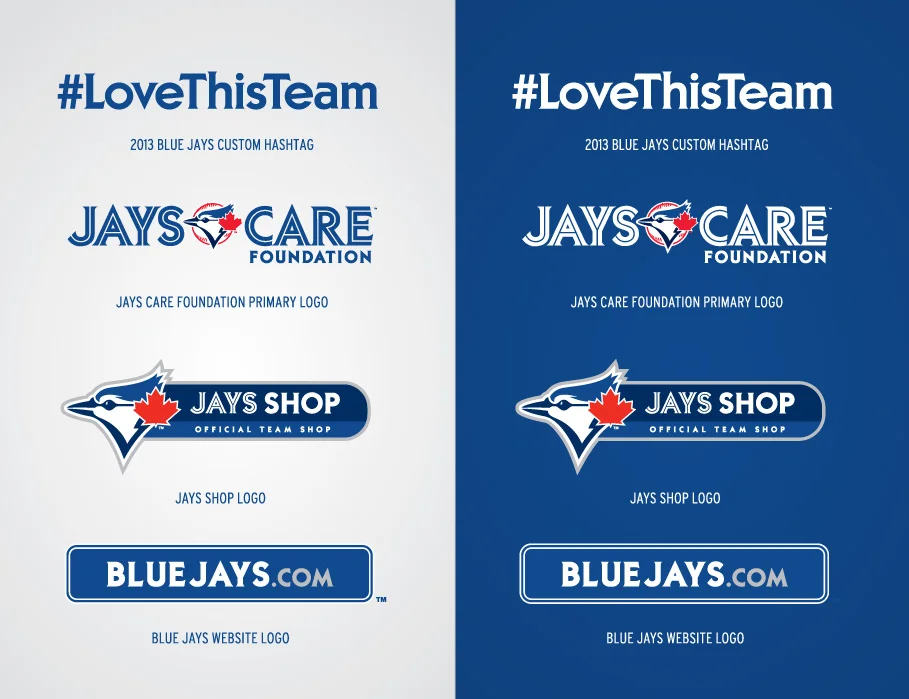
What Is The Blue Jays Font . what's the font used for toronto blue jays logo? the mlb toronto blue jays wilson font contains 236 beautifully designed characters. the toronto blue jays logo history, colors, font, and meaning. It looks to be based on itc elan with a few. it is a free font. it's a custom font, not commercially available—at least in my exploration. toronto blue jays is a casual modern and classy sans serif font that will add a delicate feel to any design project. The team was founded in 1977 as an expansion. ️ customize your own preview on ffonts.net to make. The font used for toronto blue jays logo is very similar to itc elan bold, which is a glyphic serif font. The toronto blue jays are a professional baseball team based in toronto, ontario, canada. here’s a collection of the blue jays font (not an actual font file, just vector characters i collected), and some extra stuff if anyone.
toronto blue jays is a casual modern and classy sans serif font that will add a delicate feel to any design project. The font used for toronto blue jays logo is very similar to itc elan bold, which is a glyphic serif font. what's the font used for toronto blue jays logo? it's a custom font, not commercially available—at least in my exploration. It looks to be based on itc elan with a few. The team was founded in 1977 as an expansion. the toronto blue jays logo history, colors, font, and meaning. ️ customize your own preview on ffonts.net to make. here’s a collection of the blue jays font (not an actual font file, just vector characters i collected), and some extra stuff if anyone. the mlb toronto blue jays wilson font contains 236 beautifully designed characters.
The Blue Jay Font
What Is The Blue Jays Font it's a custom font, not commercially available—at least in my exploration. The font used for toronto blue jays logo is very similar to itc elan bold, which is a glyphic serif font. The team was founded in 1977 as an expansion. ️ customize your own preview on ffonts.net to make. It looks to be based on itc elan with a few. the toronto blue jays logo history, colors, font, and meaning. here’s a collection of the blue jays font (not an actual font file, just vector characters i collected), and some extra stuff if anyone. what's the font used for toronto blue jays logo? the mlb toronto blue jays wilson font contains 236 beautifully designed characters. it is a free font. it's a custom font, not commercially available—at least in my exploration. toronto blue jays is a casual modern and classy sans serif font that will add a delicate feel to any design project. The toronto blue jays are a professional baseball team based in toronto, ontario, canada.
Lets Go Blue Jays (Blue Font) Toronto Blue Jays World Series Inspired What Is The Blue Jays Font here’s a collection of the blue jays font (not an actual font file, just vector characters i collected), and some extra stuff if anyone. the mlb toronto blue jays wilson font contains 236 beautifully designed characters. the toronto blue jays logo history, colors, font, and meaning. The toronto blue jays are a professional baseball team based in. What Is The Blue Jays Font.
MLB Blue Jays Modern free Font What Font Is What Is The Blue Jays Font it is a free font. The font used for toronto blue jays logo is very similar to itc elan bold, which is a glyphic serif font. what's the font used for toronto blue jays logo? The toronto blue jays are a professional baseball team based in toronto, ontario, canada. here’s a collection of the blue jays font. What Is The Blue Jays Font.
MLB Blue Jays Vintage free Font What Font Is What Is The Blue Jays Font it is a free font. the mlb toronto blue jays wilson font contains 236 beautifully designed characters. here’s a collection of the blue jays font (not an actual font file, just vector characters i collected), and some extra stuff if anyone. It looks to be based on itc elan with a few. what's the font used. What Is The Blue Jays Font.
The Blue Jay Font What Is The Blue Jays Font toronto blue jays is a casual modern and classy sans serif font that will add a delicate feel to any design project. The font used for toronto blue jays logo is very similar to itc elan bold, which is a glyphic serif font. It looks to be based on itc elan with a few. what's the font used. What Is The Blue Jays Font.
Toronto Blue Jays Logo Special Event Logo American League (AL What Is The Blue Jays Font toronto blue jays is a casual modern and classy sans serif font that will add a delicate feel to any design project. the toronto blue jays logo history, colors, font, and meaning. ️ customize your own preview on ffonts.net to make. it's a custom font, not commercially available—at least in my exploration. the mlb toronto blue. What Is The Blue Jays Font.
Blue Jays/TCU Jersey Font forum What Is The Blue Jays Font the toronto blue jays logo history, colors, font, and meaning. The toronto blue jays are a professional baseball team based in toronto, ontario, canada. toronto blue jays is a casual modern and classy sans serif font that will add a delicate feel to any design project. it is a free font. here’s a collection of the. What Is The Blue Jays Font.
Download free MLB Toronto Blue Jays Wilson font, free MLB_Toronto_Blue What Is The Blue Jays Font the mlb toronto blue jays wilson font contains 236 beautifully designed characters. ️ customize your own preview on ffonts.net to make. it's a custom font, not commercially available—at least in my exploration. the toronto blue jays logo history, colors, font, and meaning. It looks to be based on itc elan with a few. The team was founded. What Is The Blue Jays Font.